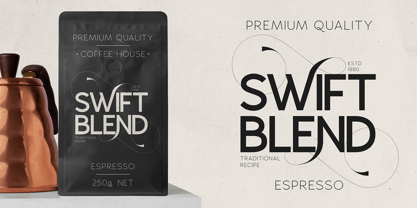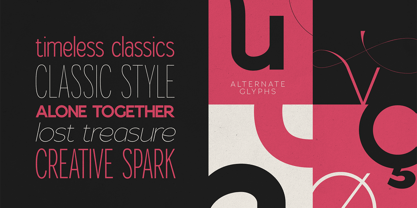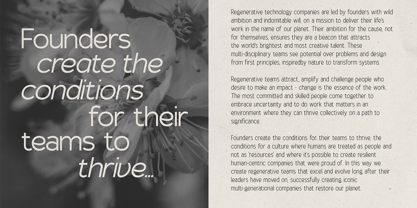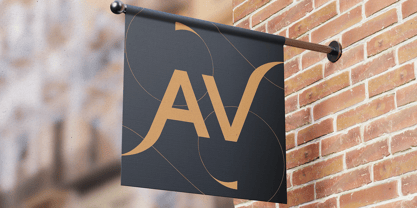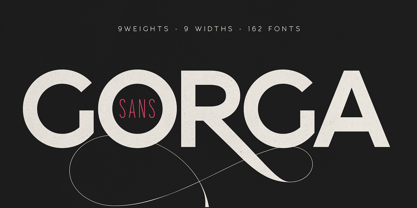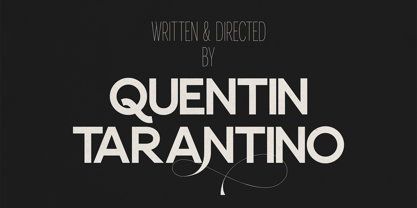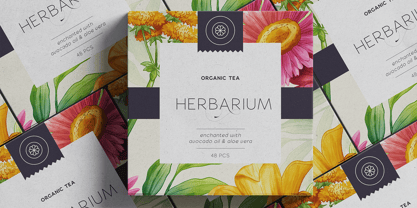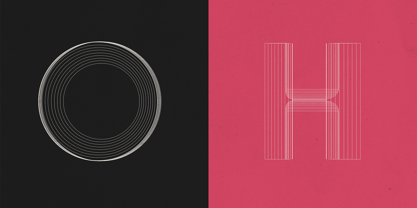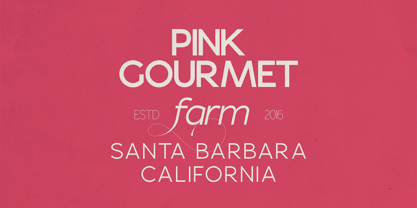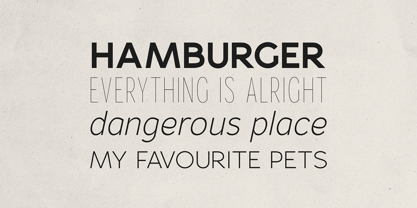
Gorga S
The Gorga S Font Family was designed by Vladimir Fedotov, Plamen Petrov and published by VP Creative Shop. Gorga S contains 162 styles and family package options. More about this family
Gorga Sans is a powerhouse variable sans serif font family featuring 162 meticulously crafted styles, from Thin Ultra Condensed to Black Ultra Expanded, each paired with elegant italic counterparts. Designed for maximum flexibility, it’s the ultimate type system for designers who demand both refined aesthetics and technical range.